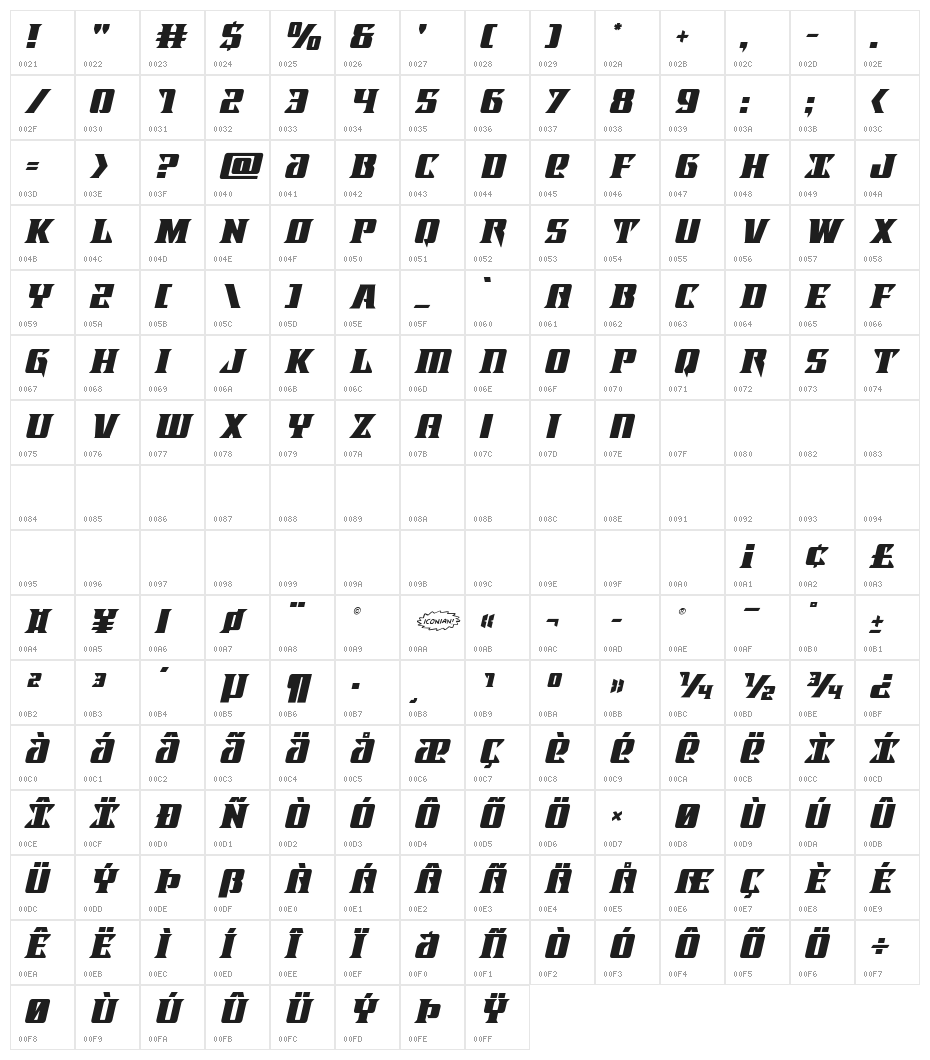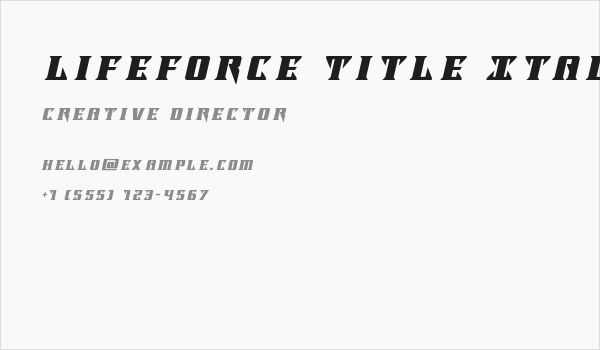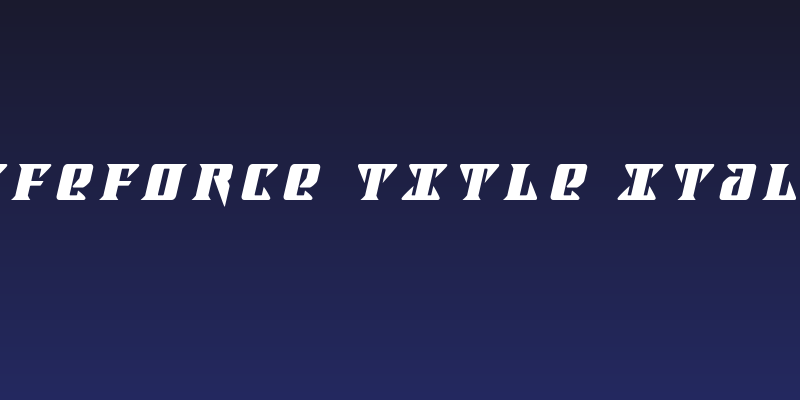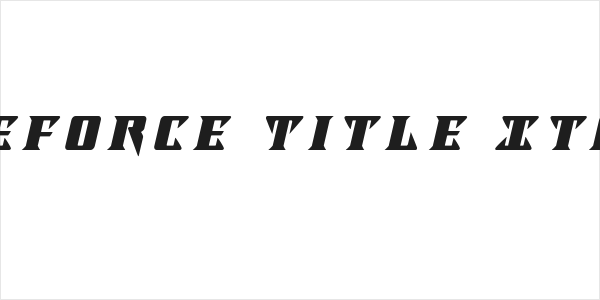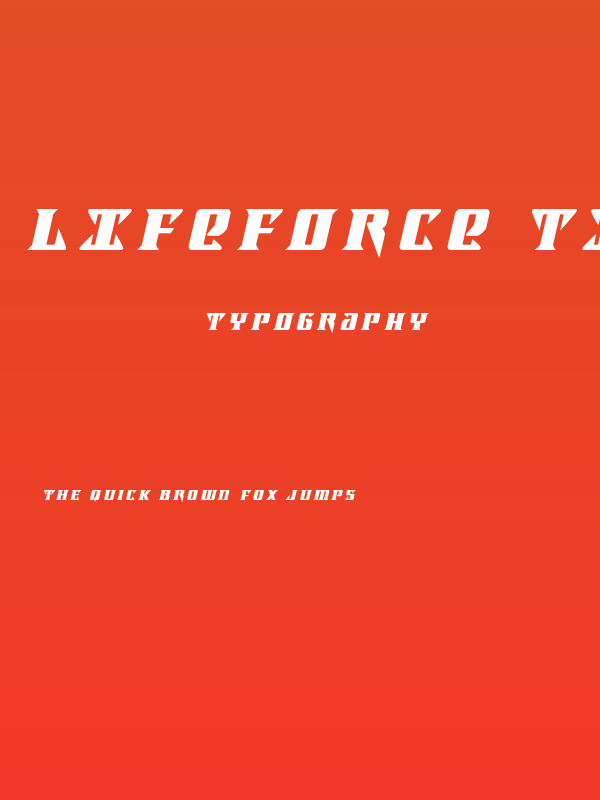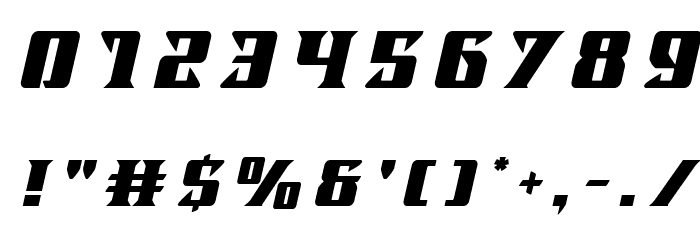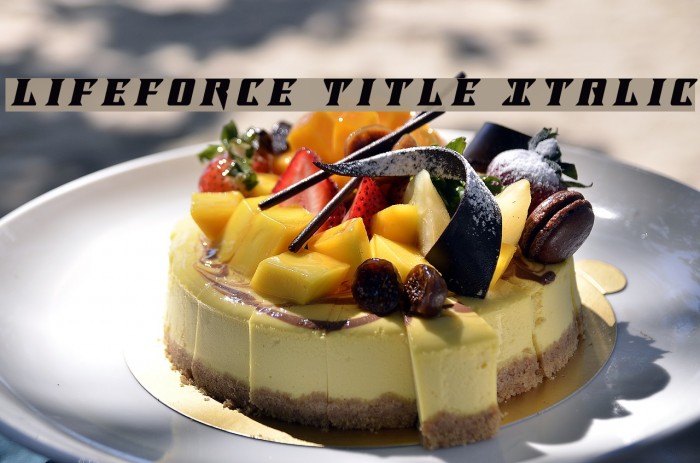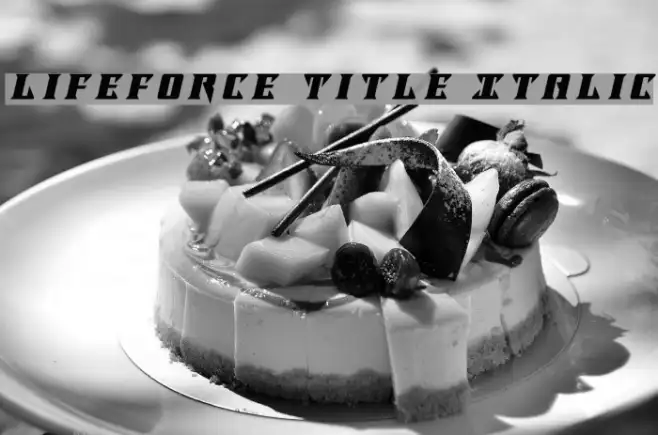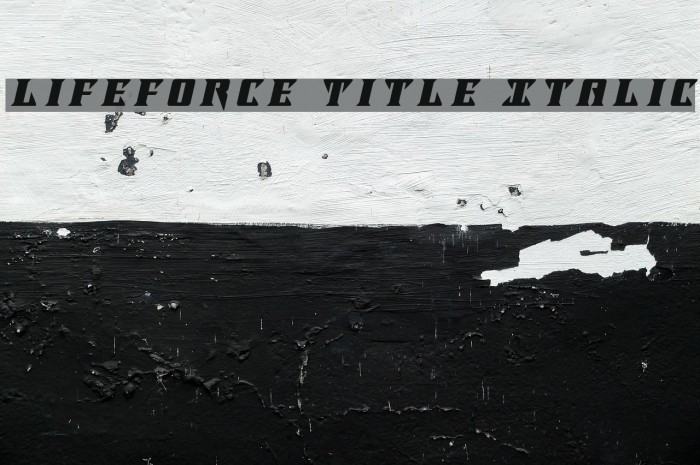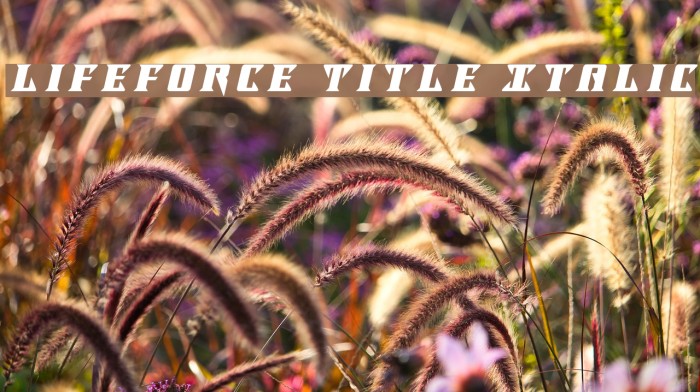
Lifeforce Title Italic Font
Lifeforce Title Italic Description
This font features a bold and dynamic design with a strong italic slant, giving it a sense of motion and energy. The characters are sharply angled with distinct edges, creating a futuristic and aggressive appearance. The uppercase and lowercase letters maintain a consistent style, with the uppercase being more pronounced. Numbers and special characters follow the same bold and angular design, ensuring uniformity across all glyphs. The font's unique style makes it stand out, ideal for projects that require a bold statement.
| Overall Style | Futuristic, Dynamic |
| Proposed Projects | Ideal for video game titles, movie posters, sports branding, and any project needing a bold, energetic typeface. |